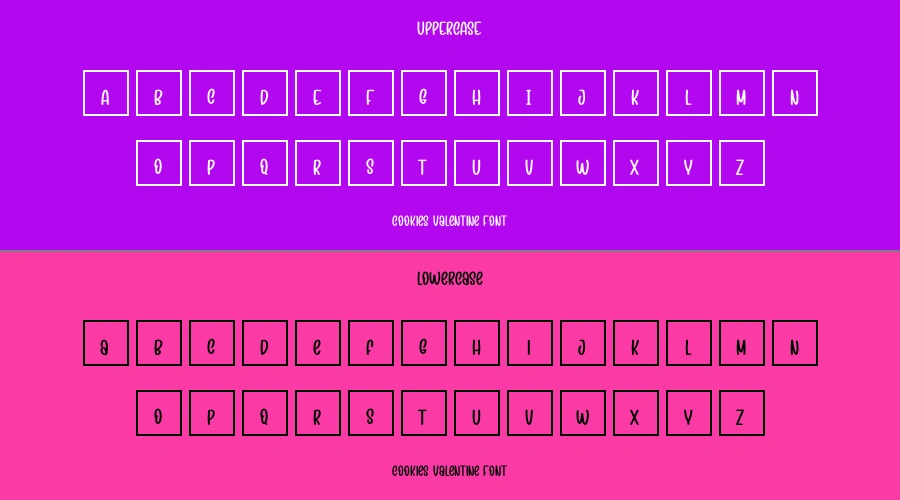
About Cookies Valentine Font
Cookies Valentine Font stands out for its distinctive combination of decorative elements and production readiness. Ideal for merchandise graphics, it provides the precision and market appeal that professional projects demand. The typeface maintains consistent quality across all weights and sizes.
Key features include refined organic curves and practical discretionary ligatures, enhancing typographic expression. In technical manuals applications, Cookies Valentine Font demonstrates exceptional symbol integration. The stroke modulation and regulatory compliance contribute to its distinctive character and professional appeal.